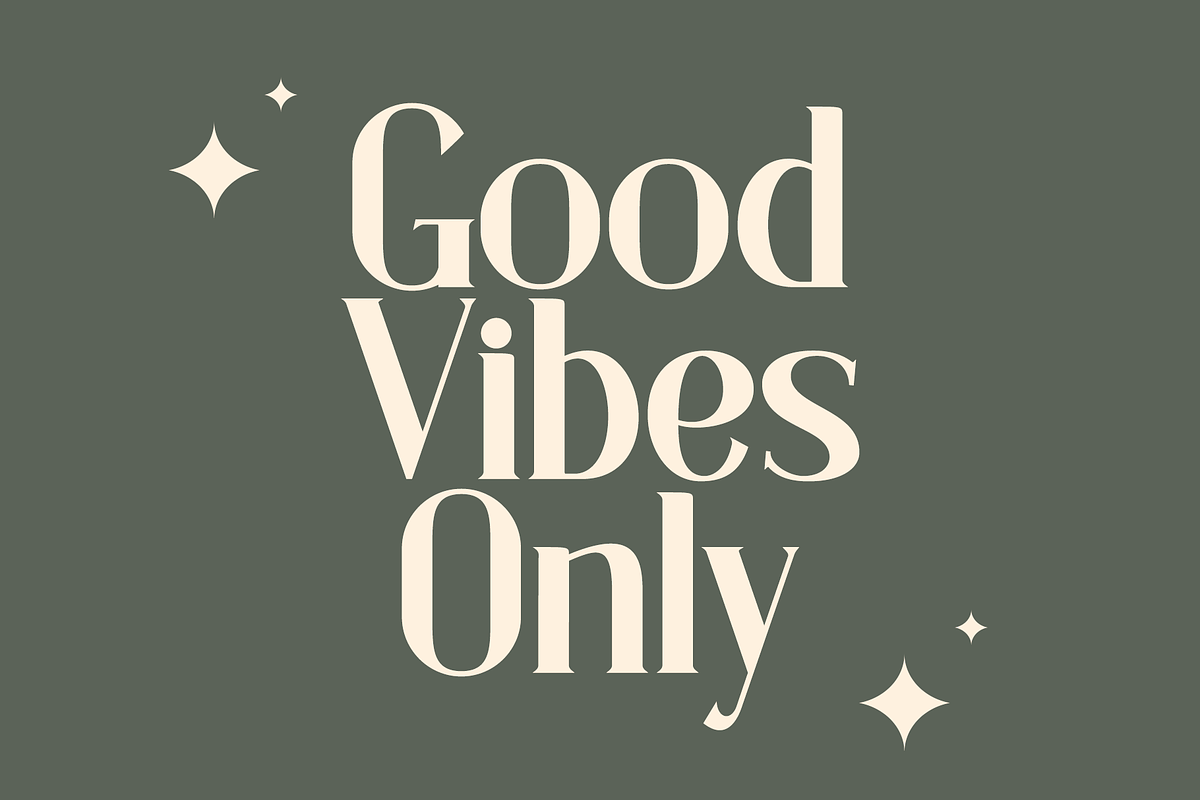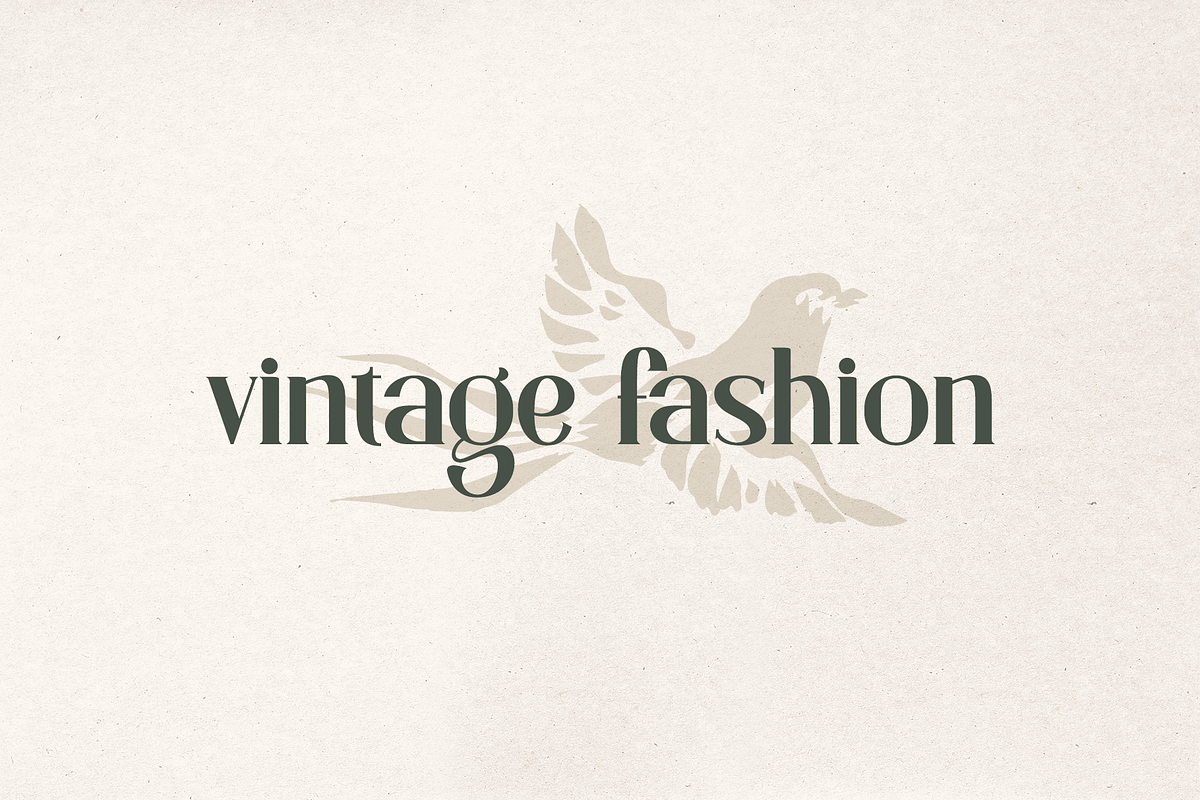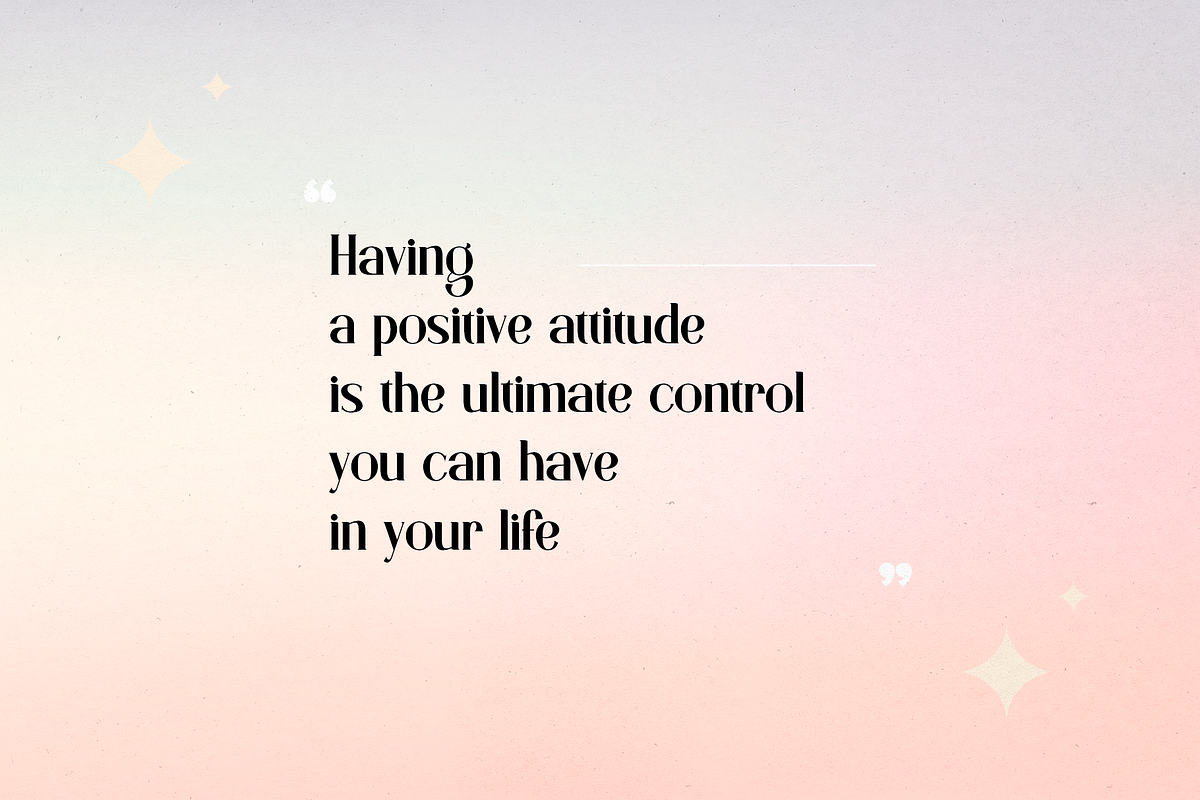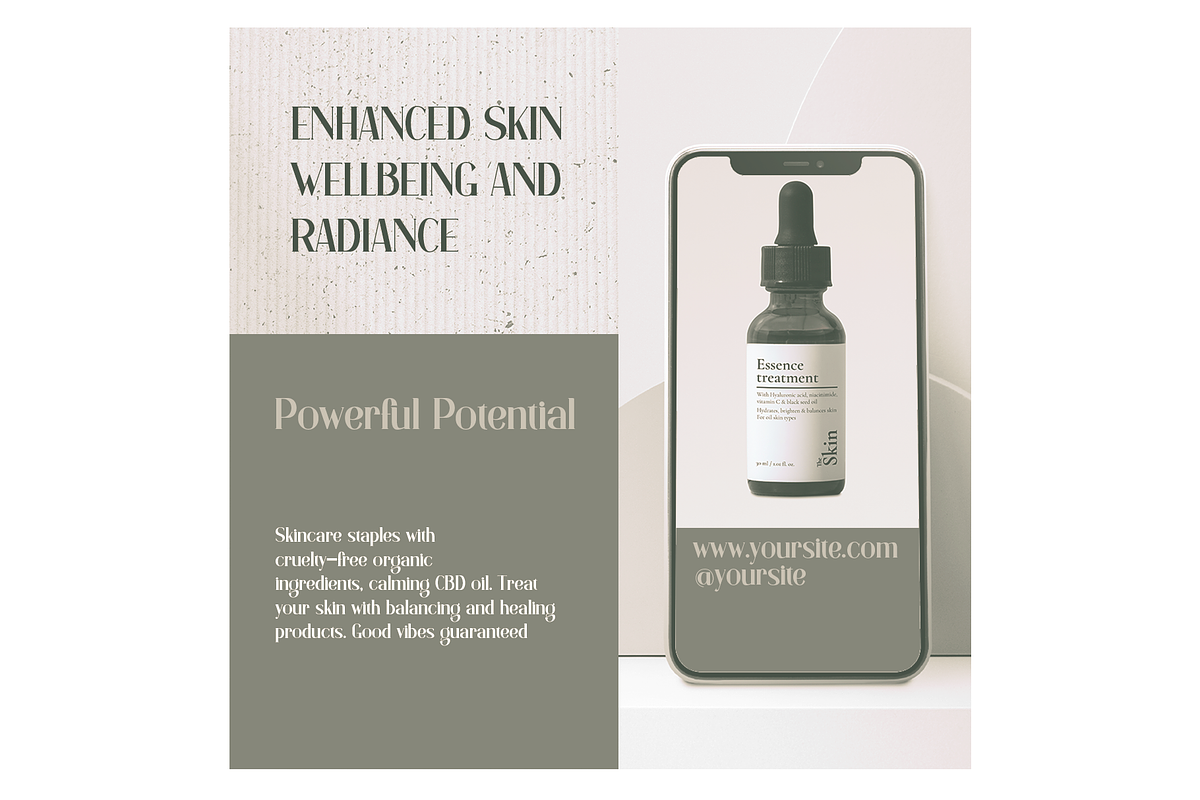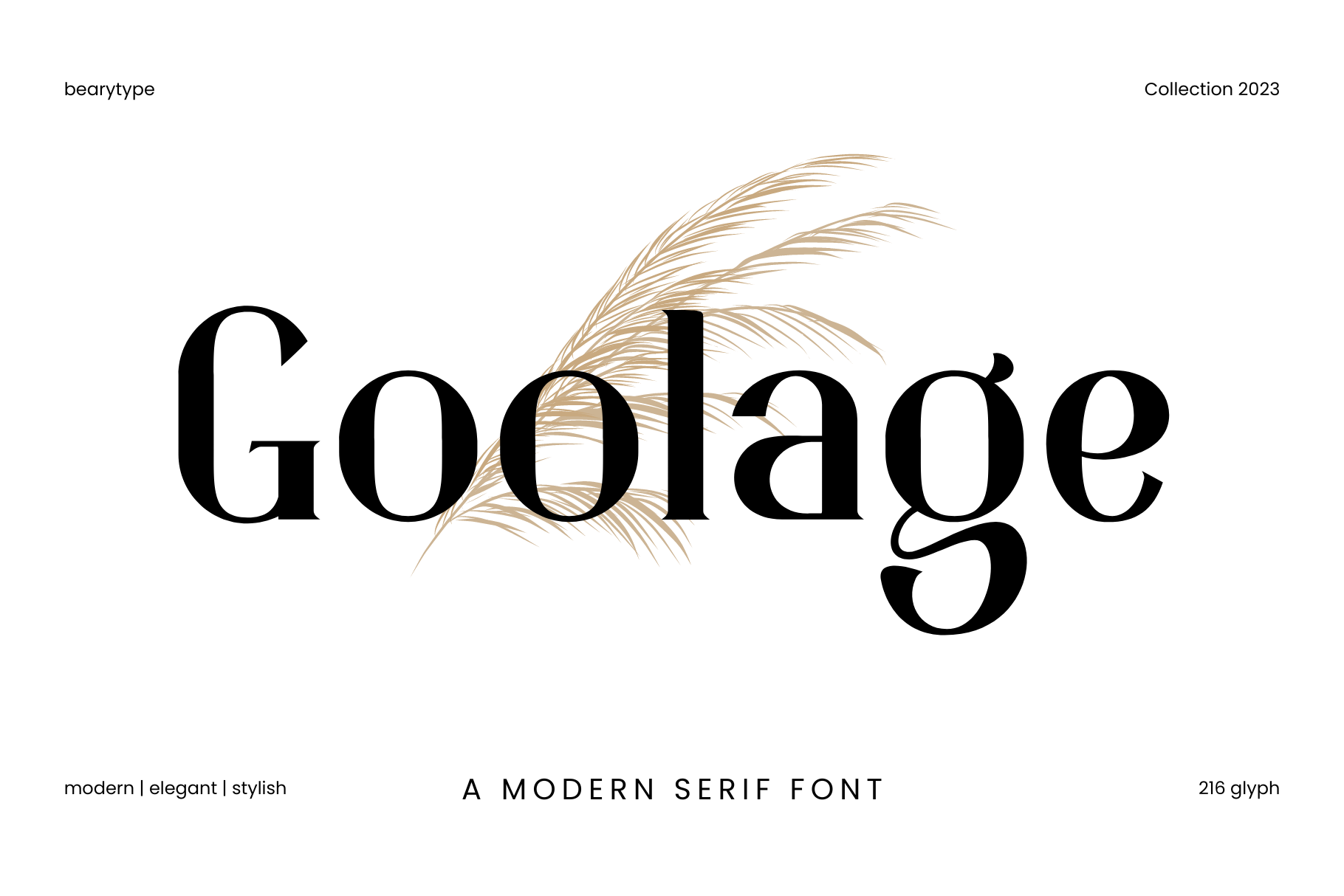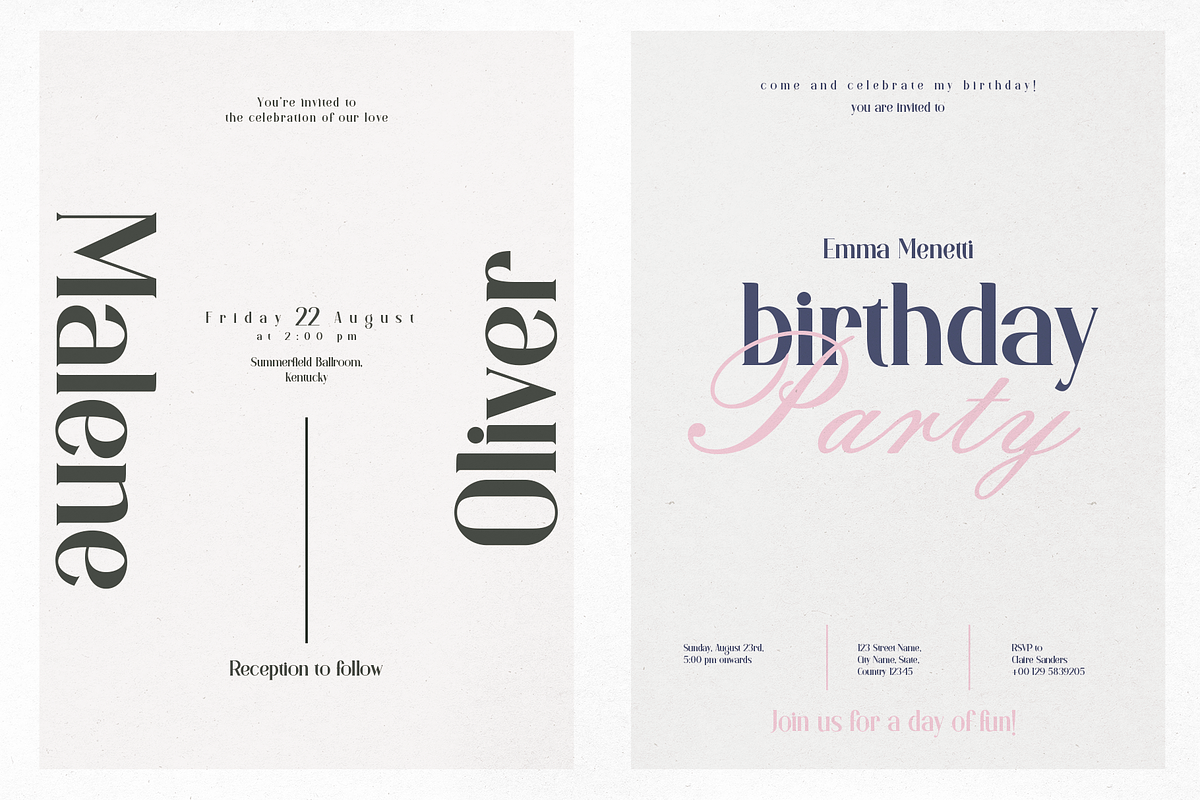
Goolage | Modern Serif Font
Introducing Goolage: A Modern Serif Font for Elegance!
Goolage is our latest font creation, blending the aesthetics of modern serif with an unmatched touch of elegance. With its unique characteristics, Goolage brings a classy and professional look to every design project.
What makes Goolage special?
Modern Serif Beauty: Goolage features a beautiful and modern serif design, striking the perfect balance between classic and contemporary styles.
Readability at its Best: With refined proportions, Goolage ensures easy readability, making it an ideal choice for both print and digital content.
Character Diversity: Goolage comes with a variety of character variations and letter styles, allowing you to customize your design as needed.
Multiplatform Versatility: Suitable for various platforms, including graphic design, web, and software applications, Goolage provides flexibility in implementation.
International Compatibility: With support for multiple languages, Goolage ensures your message can reach a global audience.
Goolage is the top choice to elevate the look of your designs with a touch of elegant modern serif. Start using Goolage in your projects and let this font bring a unique and beautiful aesthetic to your work. Get Goolage now and witness how your designs become extraordinary!